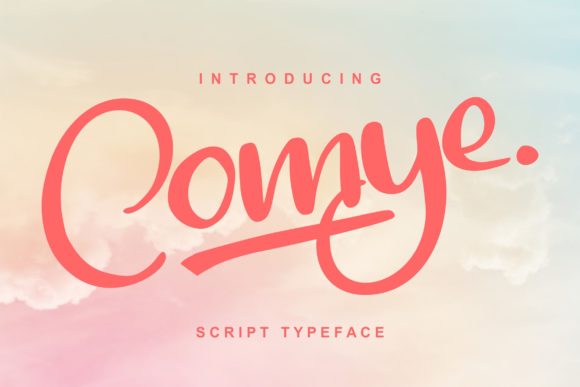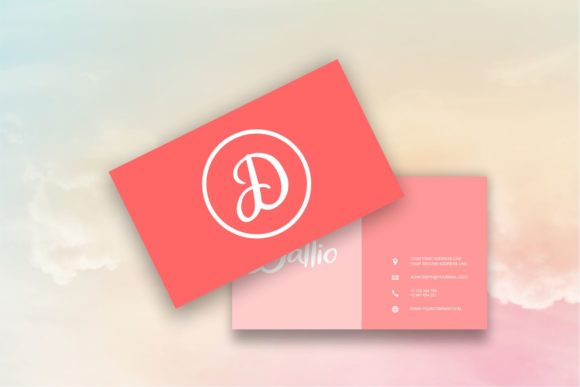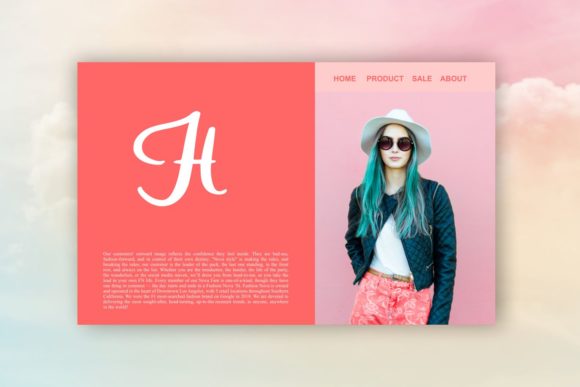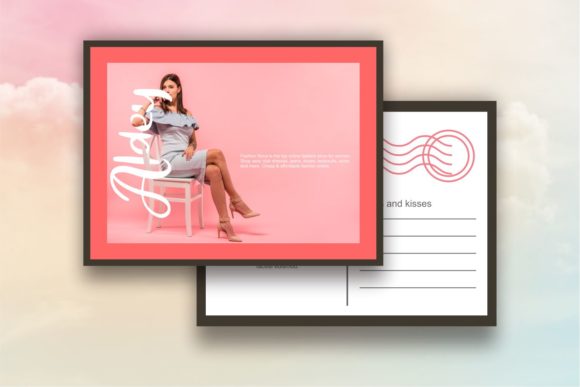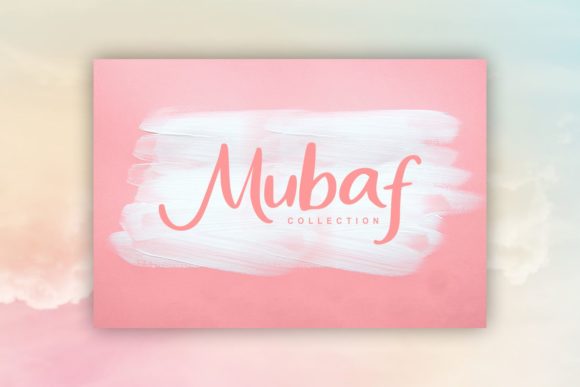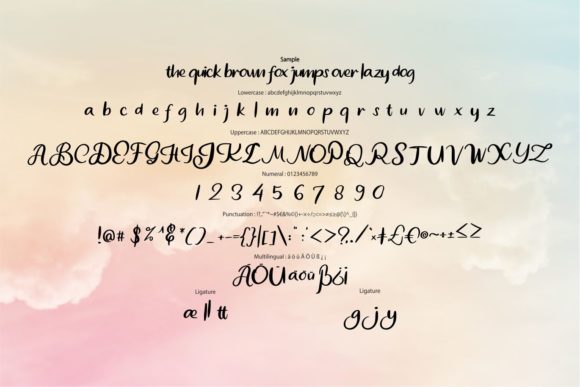
Comye Font
About Comye Font
Comye pays homage to classic calligraphy with its beautiful alternates. It will look gorgeous in greeting cards, branding materials, business cards, quotes, posters, and much more!